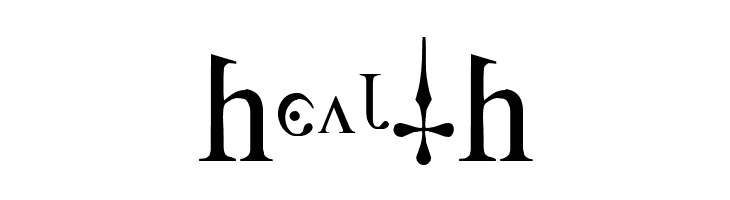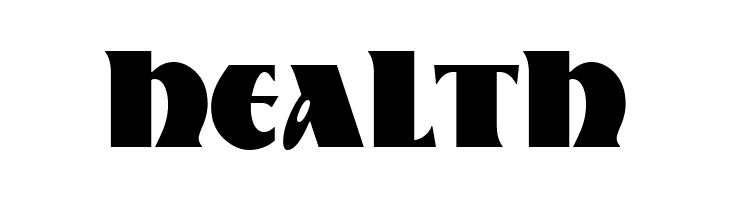
A bold, modern sans-serif font with low contrast and normal spacing.
A bold, geometric font with sharp angles and minimal contrast.
A sleek, modern italic font with medium contrast and elegant curves.
A dynamic, oblique font with bold, semi-condensed characters and medium contrast.
A bold, blocky font with a strong geometric structure and minimal contrast.
A modern, light sans-serif font with smooth, rounded edges and low contrast.
A sleek, modern, light italic font with elegant curves and minimal contrast.
A bold, modern sans-serif font with medium contrast and geometric shapes.
A sleek, modern font with elongated, narrow characters and minimal contrast.
A sleek, modern italic font with elongated, narrow characters and low contrast.
A modern, bold, and italicized font with medium contrast and a sleek, elegant style.
A classic serif font with moderate contrast and pronounced serifs, offering elegance and readability.
An elegant serif italic font with moderate contrast and refined style.
A classic serif typeface with high contrast and elegant serifs.
A classic serif font with an elegant oblique slant and moderate contrast.
A bold, classic serif font with high contrast and strong visual impact.
A classic serif typeface with elegant contrast and sharp serifs.
A bold serif font with high contrast and elegant design.
A bold, high-contrast serif font with a dramatic and elegant style.
A classic serif font with elegant, slightly italicized letterforms and medium contrast.
A classic serif font with a condensed width and medium contrast, offering elegance and readability.
A classic serif font with medium contrast and elegant styling.
A classic serif font with high contrast and elegant, sophisticated styling.
A classic serif font with high contrast and sharp serifs, exuding elegance and sophistication.
An elegant, italic serif font with high contrast and classic style.